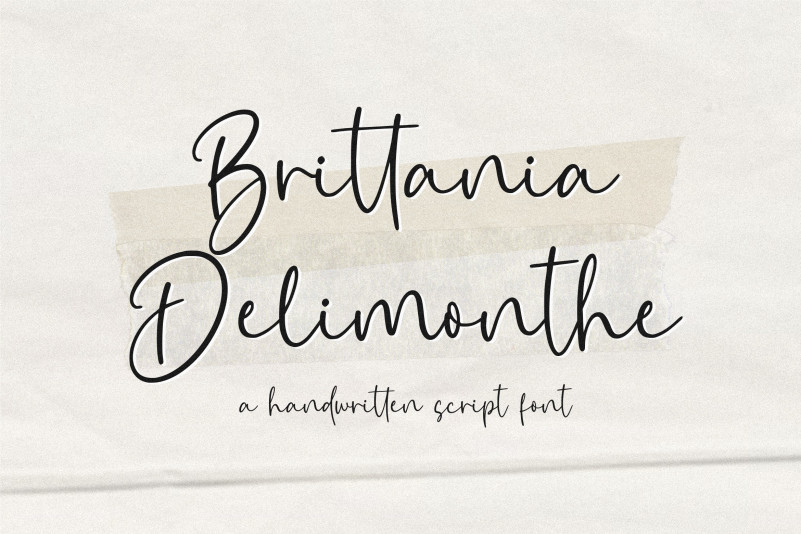
Brittannia Delimonthe Font
Brittannia Delimonthe Script Font,is a flowing handwritten font, described by an elegant touch, perfect for your favorite projects. Fall in love with its incredibly distinct and timeless style and use it to create spectacular designs!